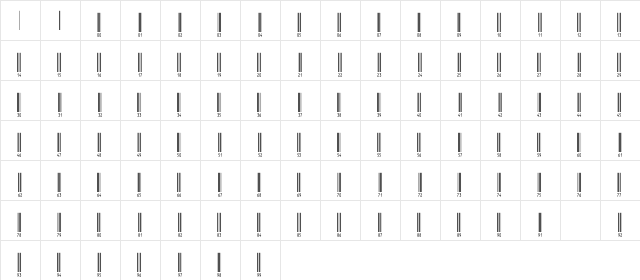
IntHrP72DmTt Normal
Design Context for IntHrP72DmTt Typeface
IntHrP72DmTt is a composed and adaptable typeface that performs quietly and consistently across a wide range of design contexts.